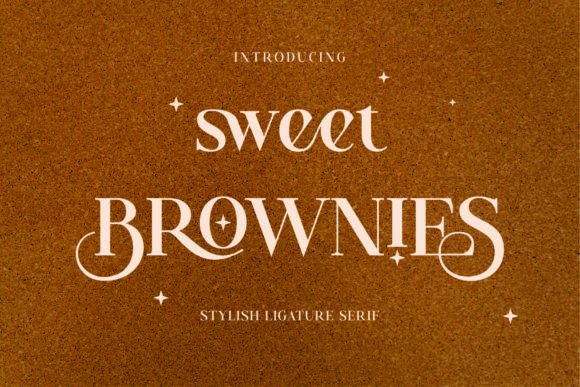
Journey into the world of Sweet Brownies Font, a serif font family that exudes elegance and sophistication, crafted by the talented hands of dylla studio. Discover a world of endless creativity as you delve into the depths of this typographic masterpiece.
Meet Sweet Brownies, a font family designed to elevate your visual creations. Inspired by the timeless allure of minimalist logos, Sweet Brownies is the perfect companion for a myriad of design projects, from captivating templates and brochures to engaging videos and advertisements. Its refined curves and delicate serifs add an air of understated luxury, making it the ideal choice for branding, logos, invitations, and layout designs.
With Sweet Brownies, you can effortlessly infuse your designs with a touch of elegance and charm. Let your imagination run wild as you explore the boundless possibilities of this versatile font family. Create eye-catching headlines that demand attention, craft compelling body text that captivates readers, and design logos that leave a lasting impression.
Unleash your inner artist and embark on a creative adventure with Sweet Brownies. Whether you're a seasoned designer or just starting your journey into the world of typography, this font family will guide you every step of the way. Experience the joy of creating designs that resonate with your audience and leave a lasting impact.
Indulge in the beauty and functionality of Sweet Brownies Font, the perfect choice for discerning designers seeking a touch of sophistication and elegance. Let your creativity flourish and transform your designs into works of art with this remarkable font family. Embrace the power of Sweet Brownies and watch your designs blossom into stunning masterpieces.